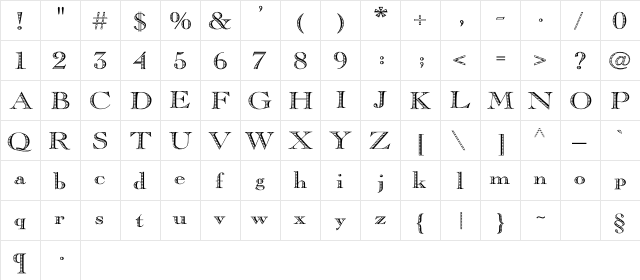
Essential Times Normal
Design Context for Essential Times Typeface
Essential Times is a composed and adaptable typeface that performs quietly and consistently across a wide range of design contexts.